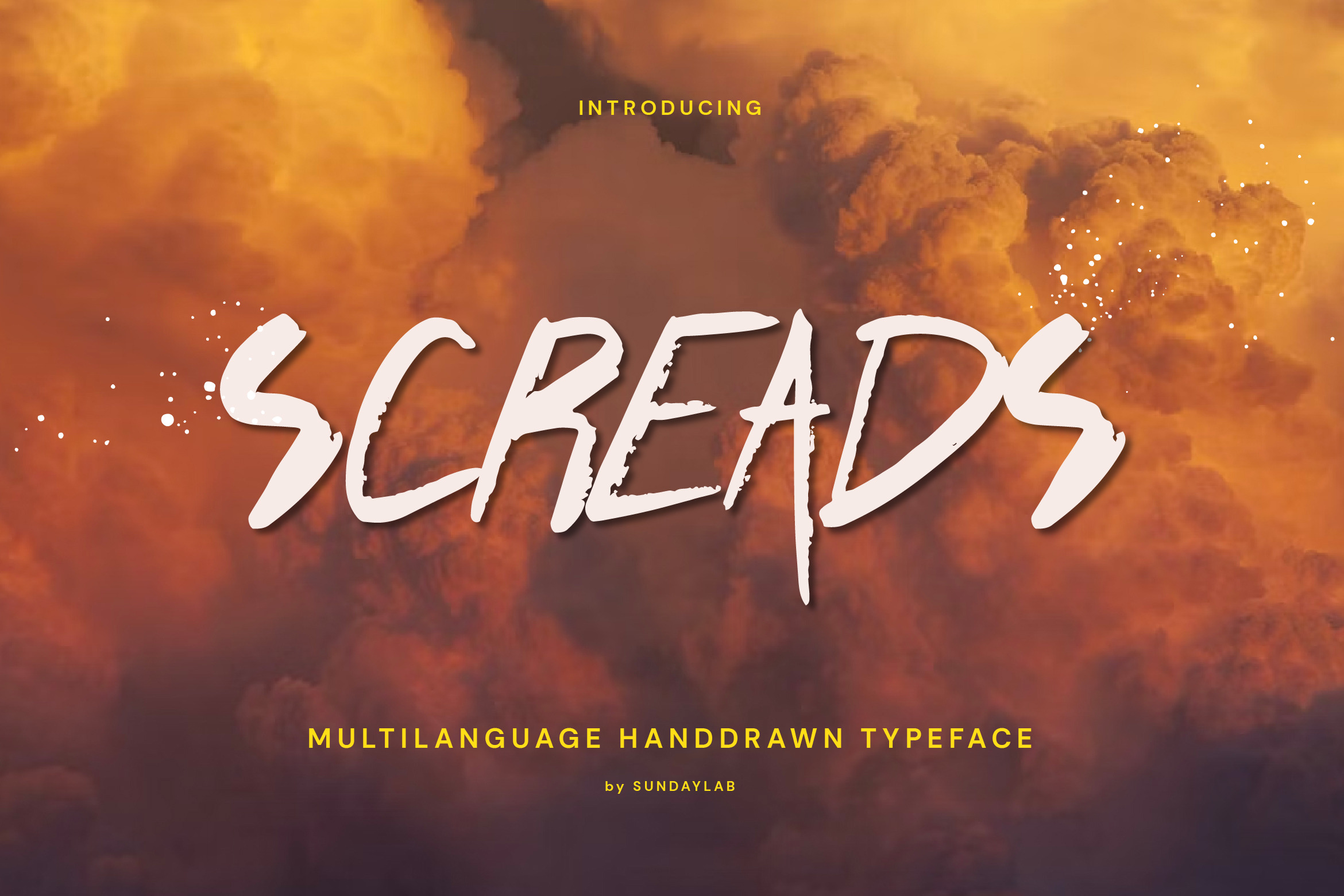
Screads Typeface
Introducing
Screads Typeface
Screads Typeface was inspired from ink & tints manual handdrawn brush that can help display messages in the designs you create. With its unique character, it is suitable for you to use on stickers, flyers, movie sceen, film title, gigs, clothing, website, social media, vinyl, CDs, and many other media.